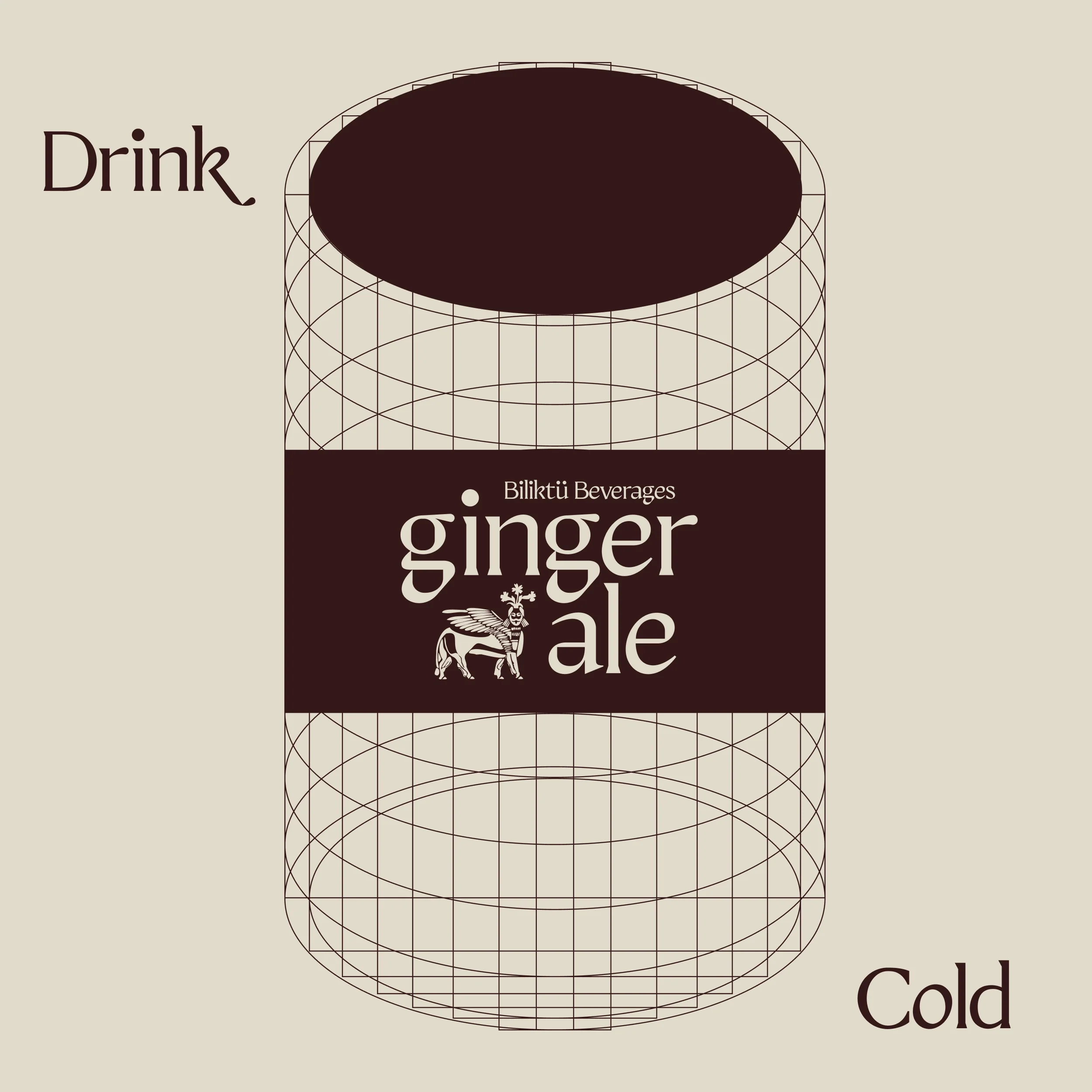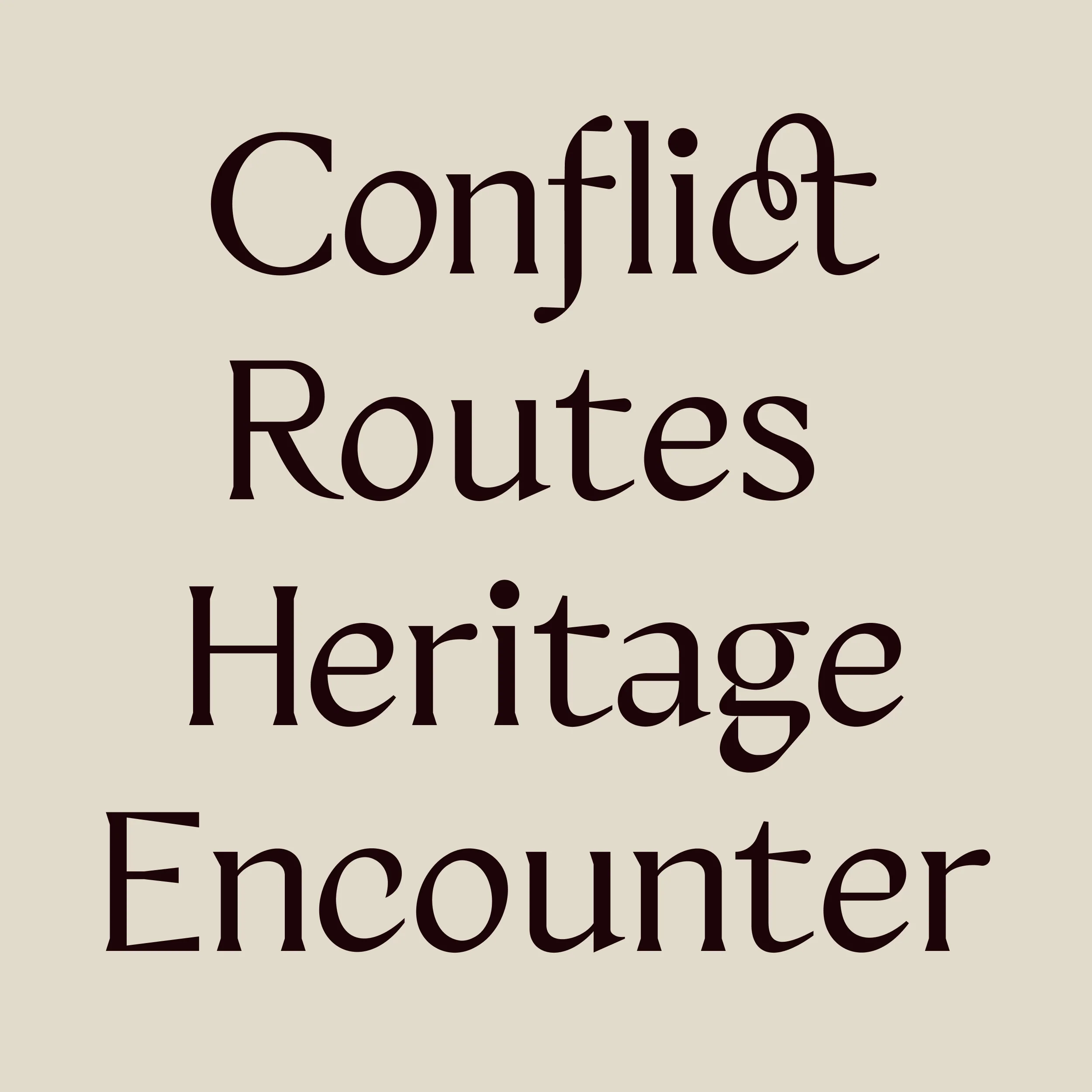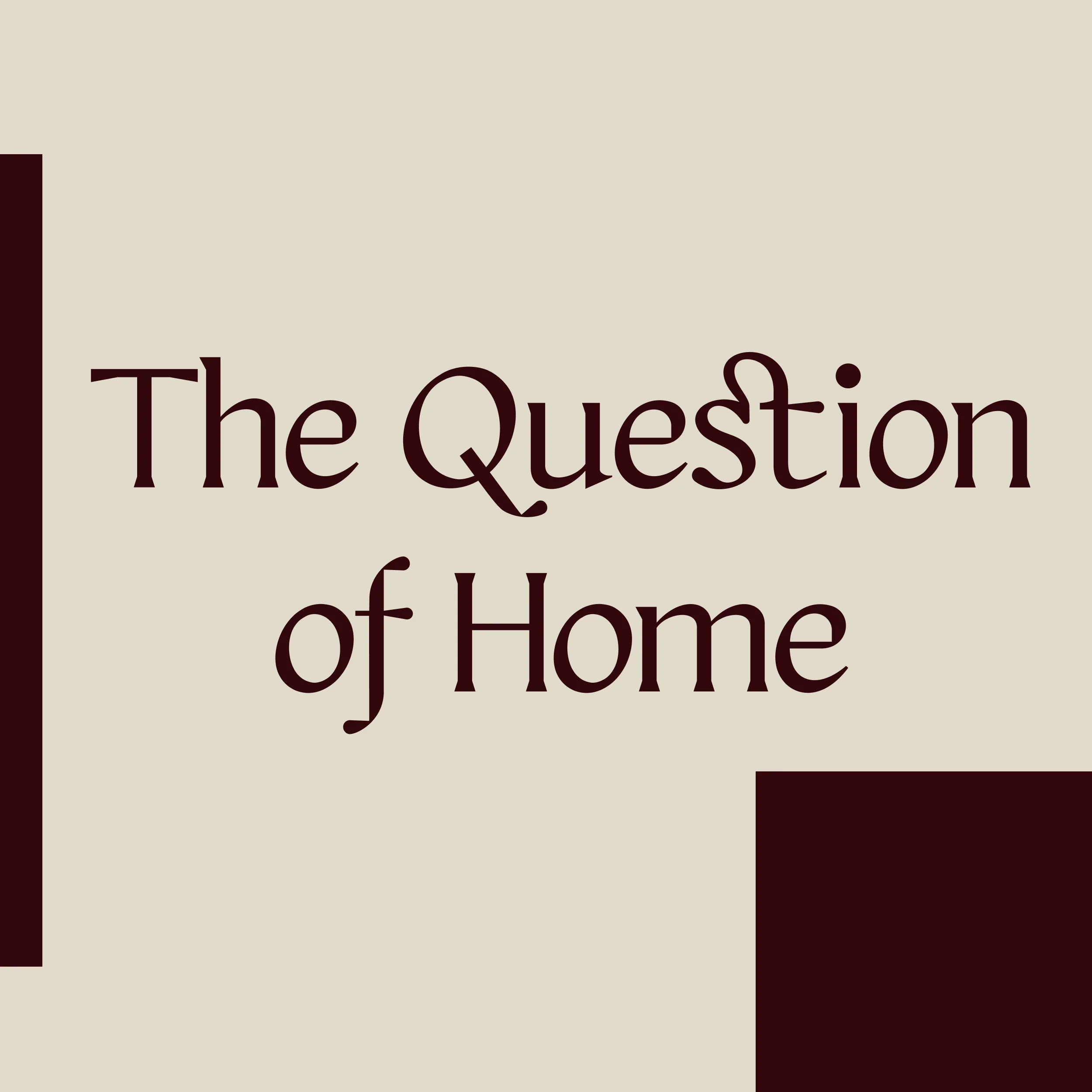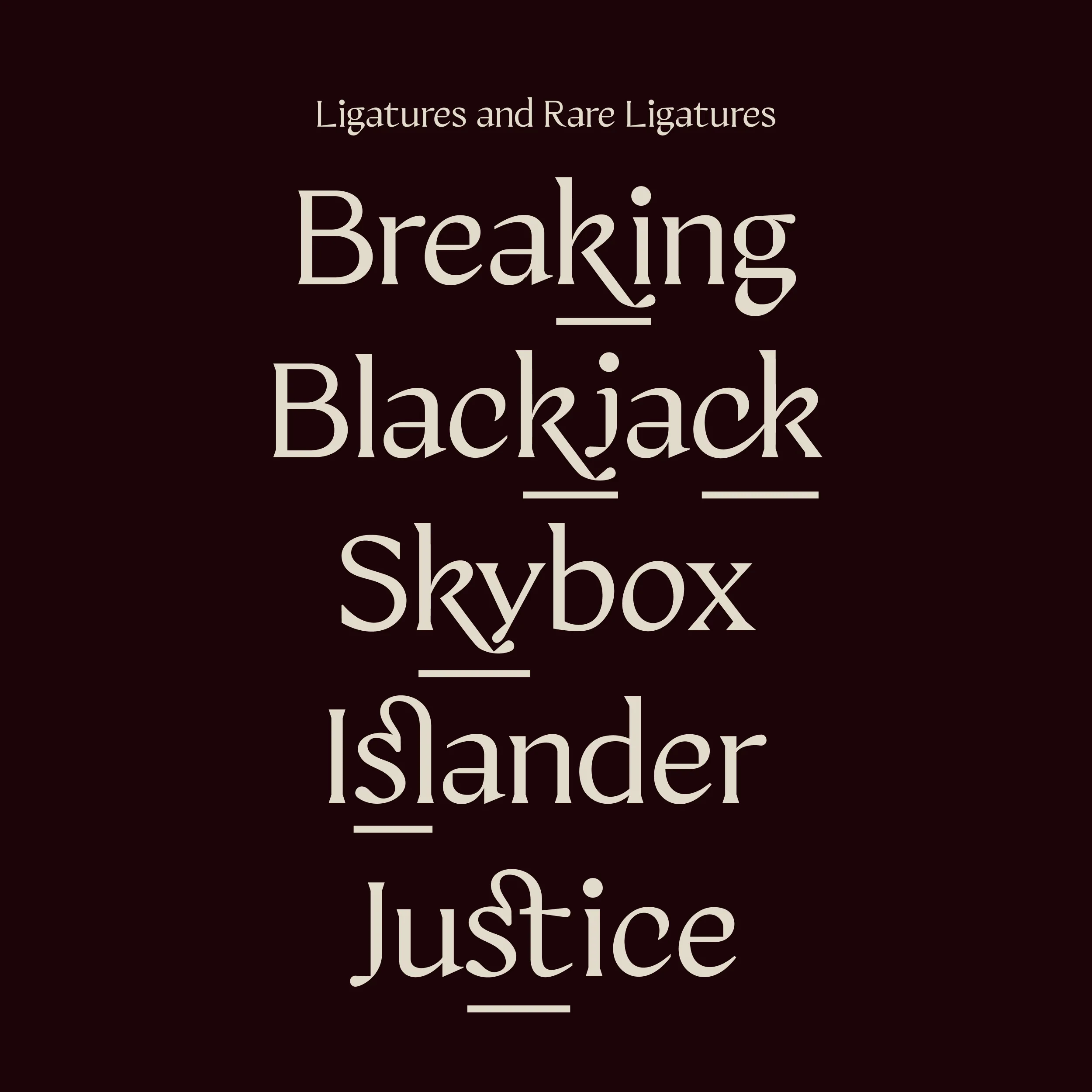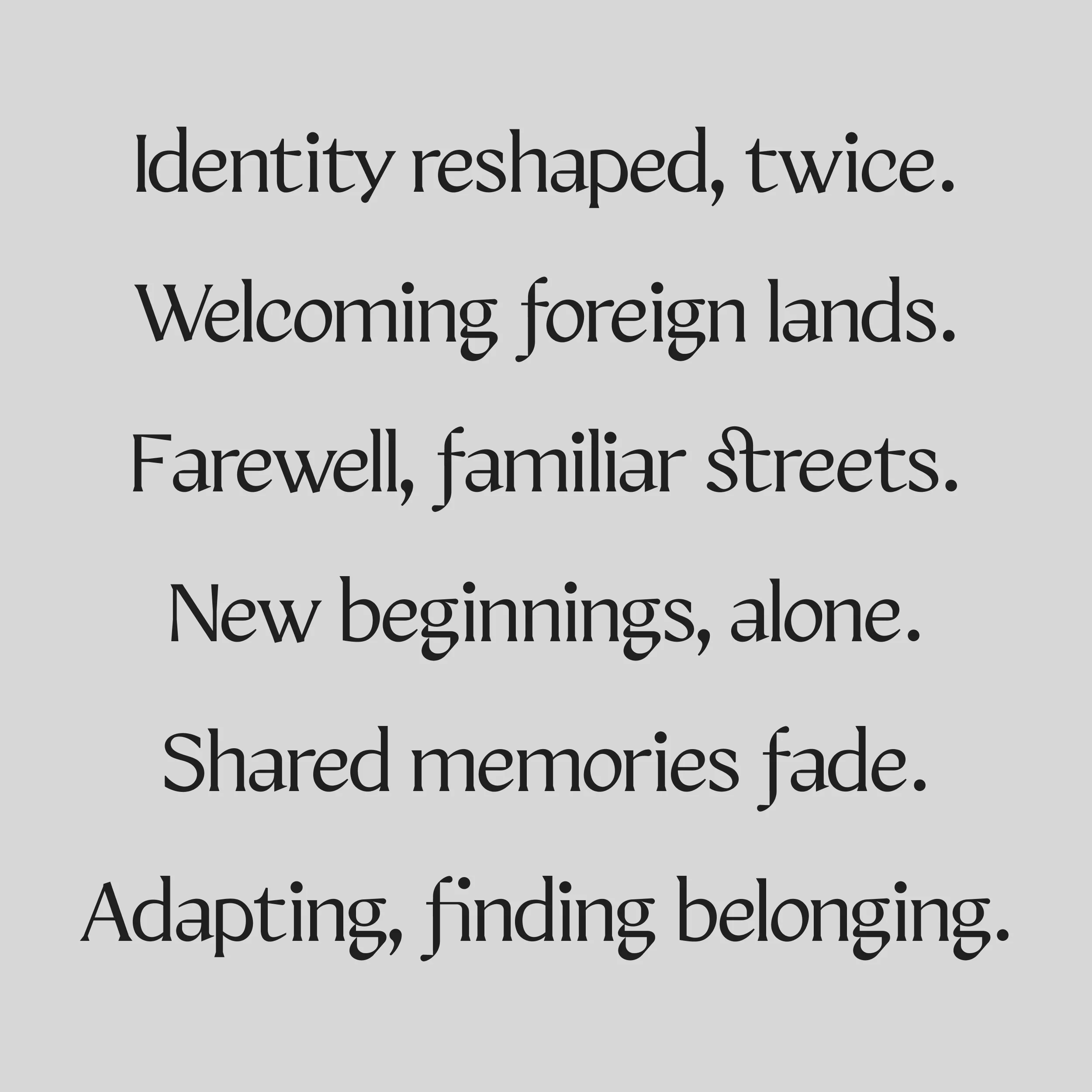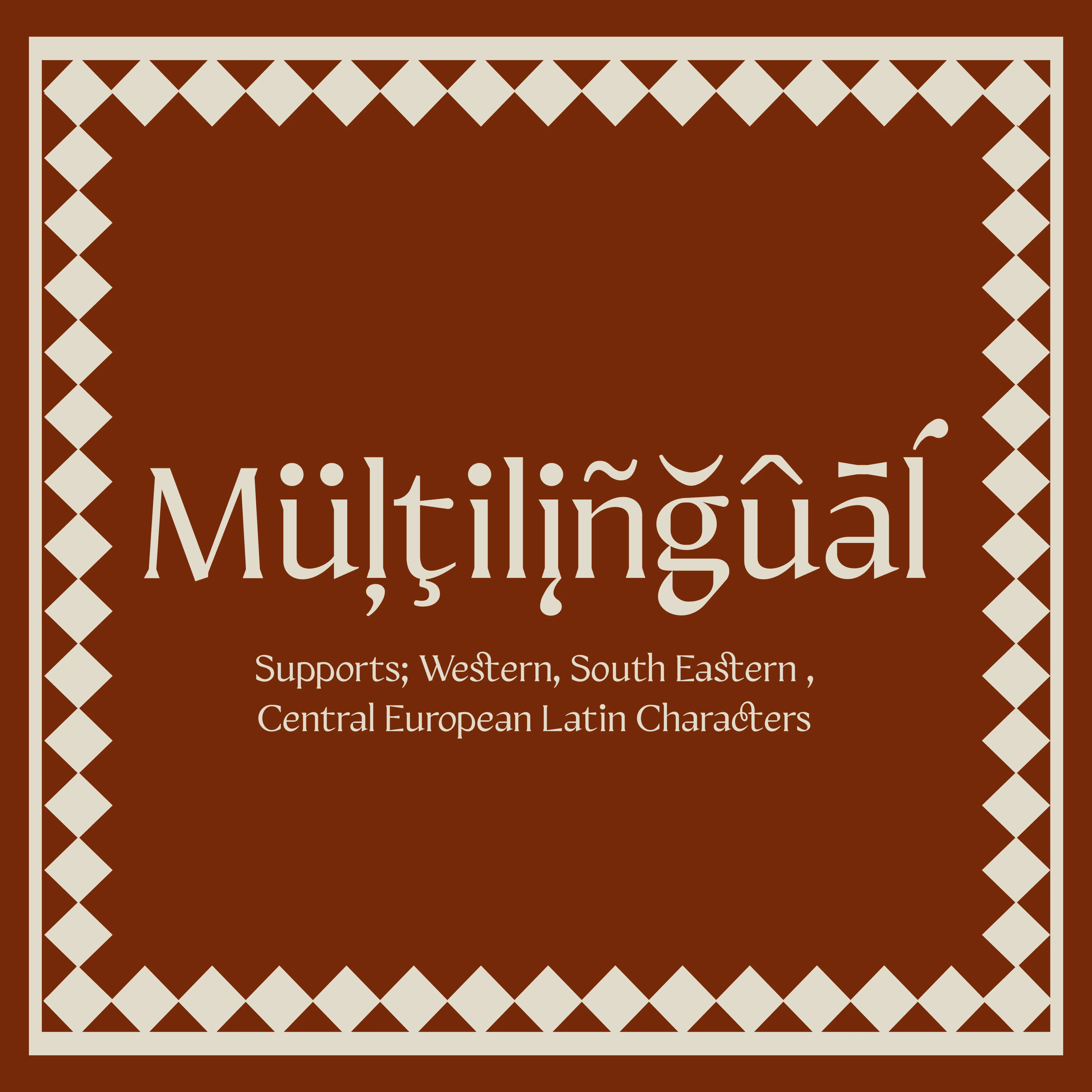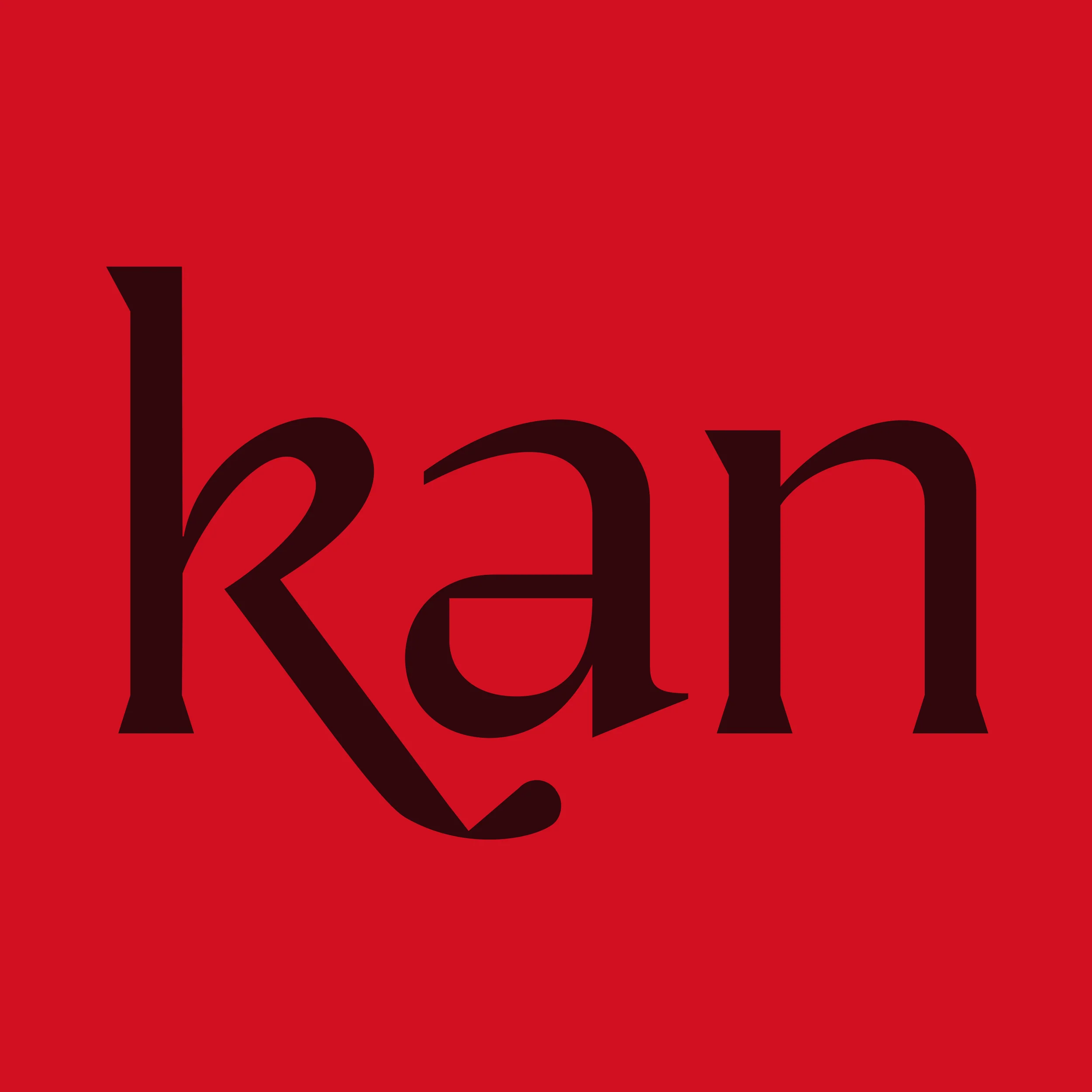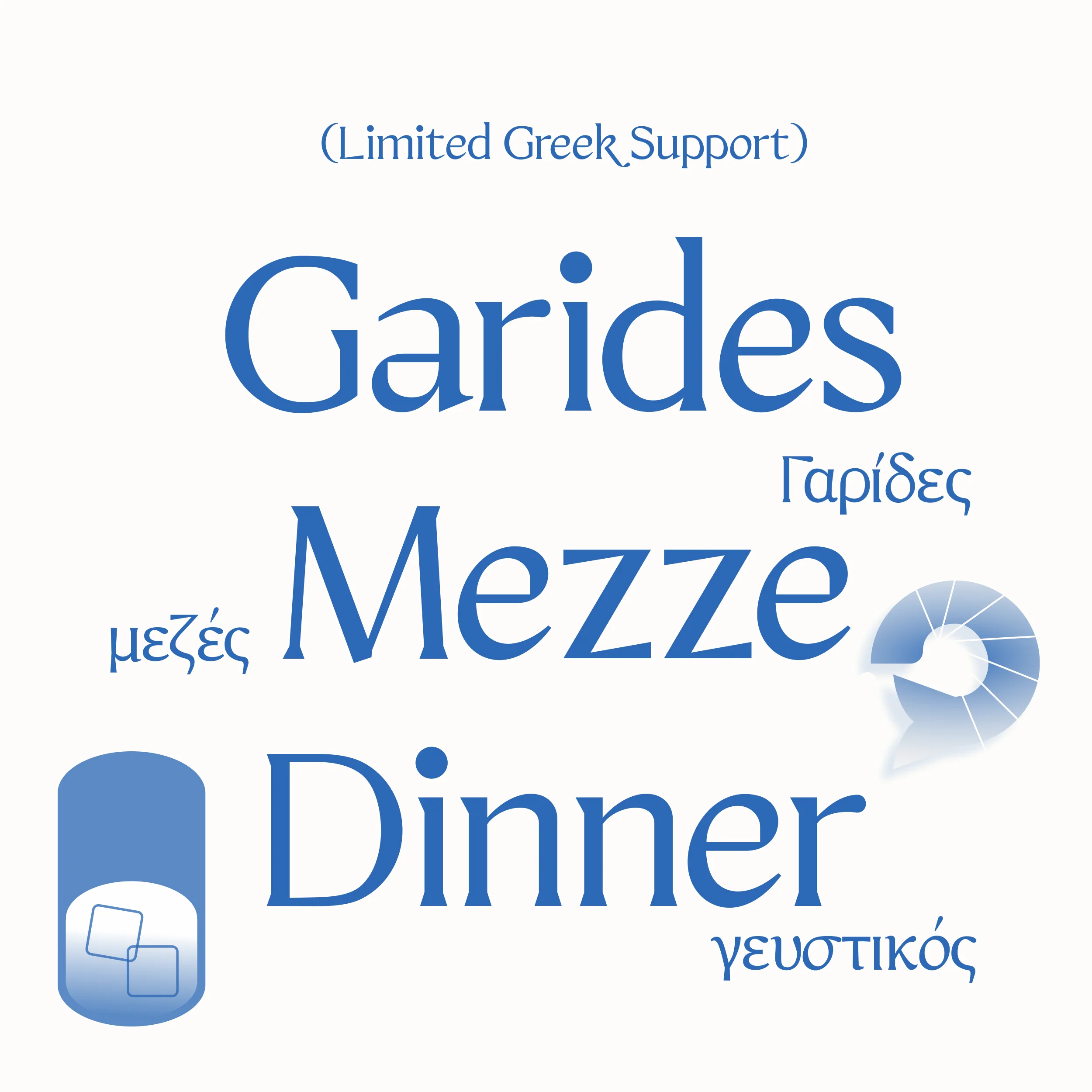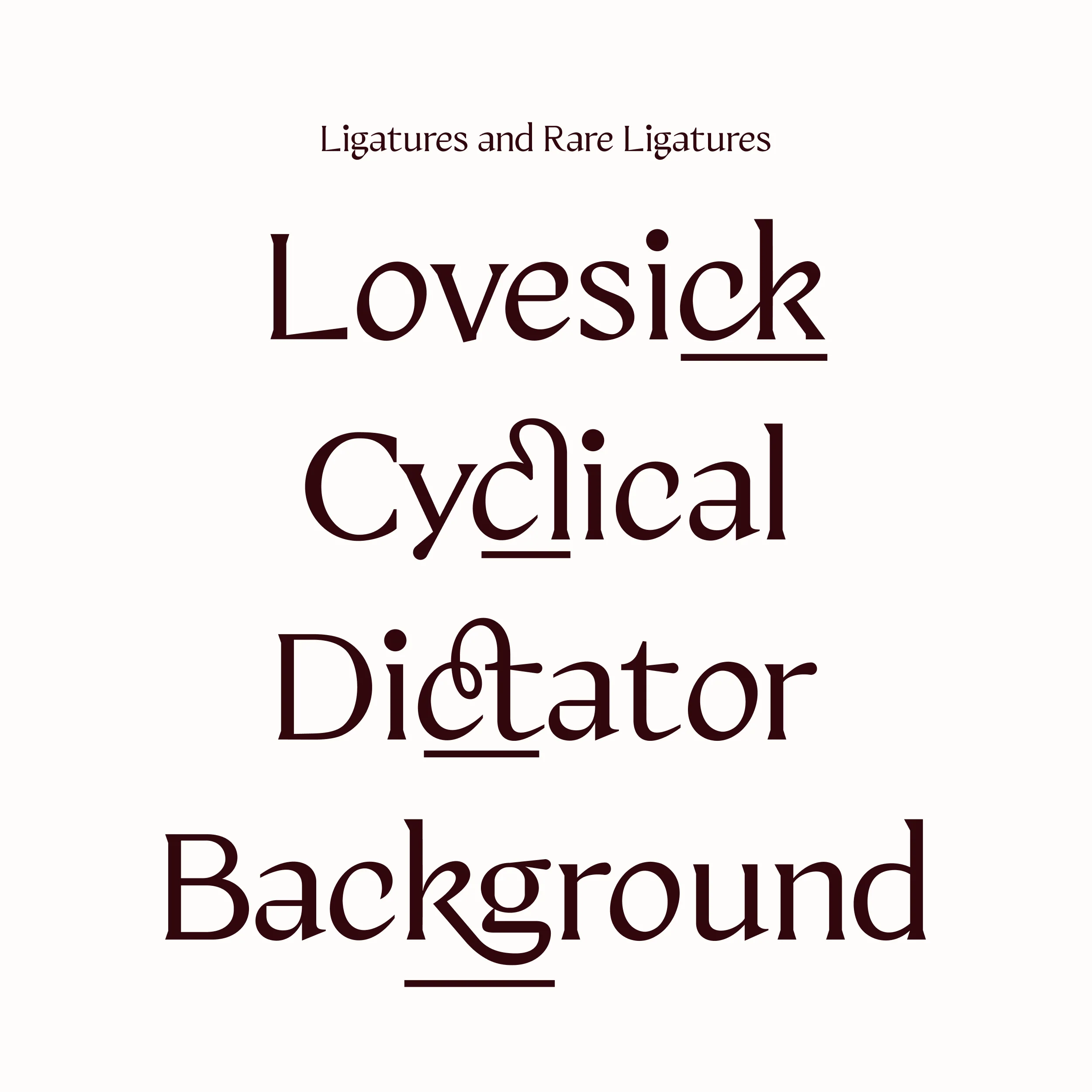
BM Agia
Inspired by the late 1800s in the Balkans and Mesopotamia, Agia reflects stories of loss, separation, and becoming strangers to familiar neighbours. It captures these emotions through its cultural and artistic essence.